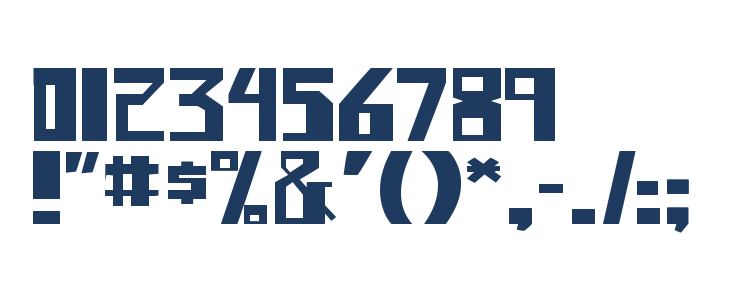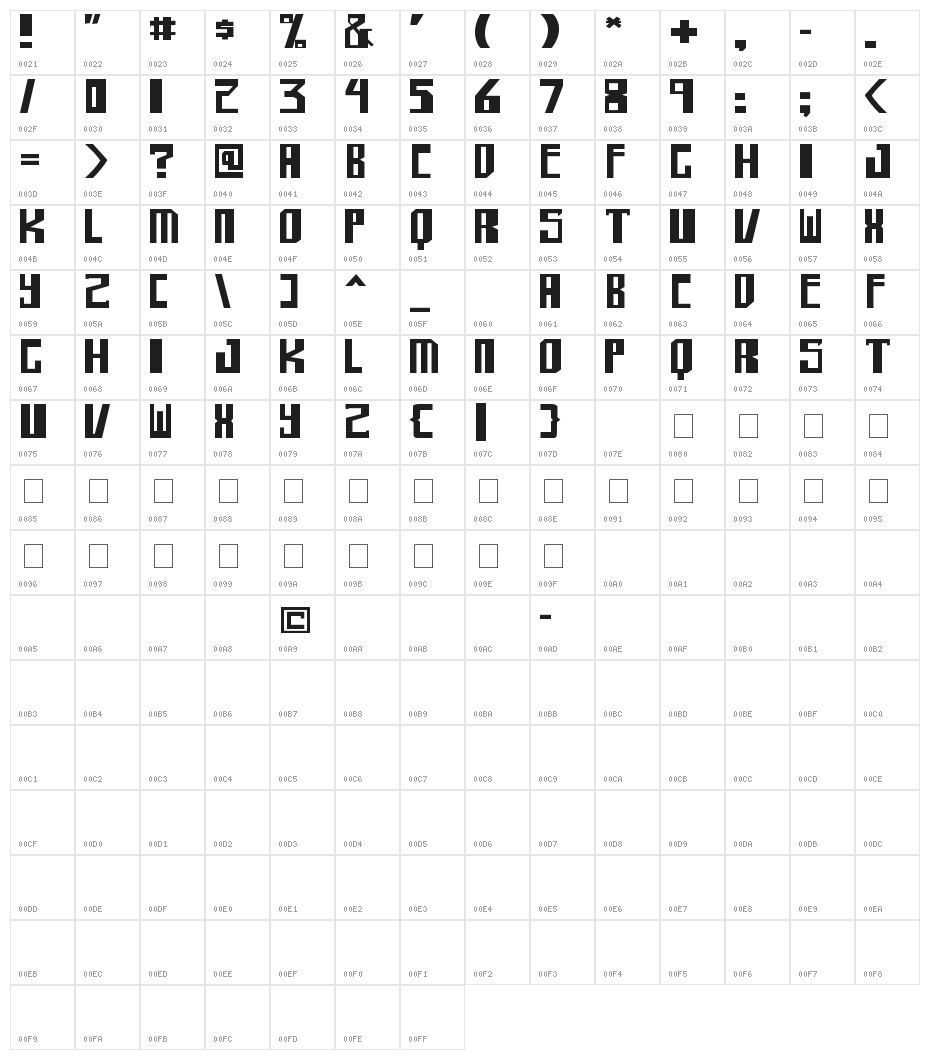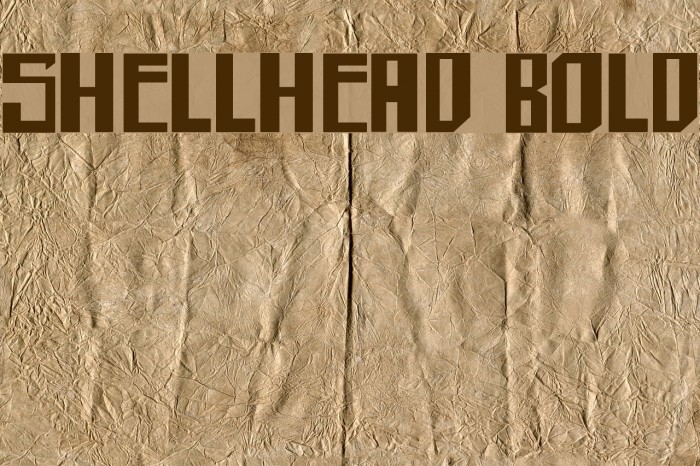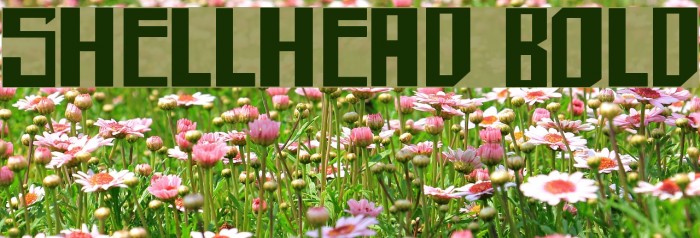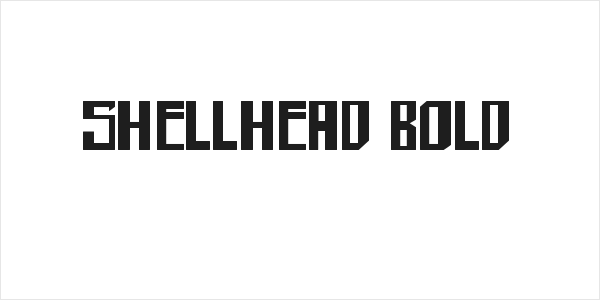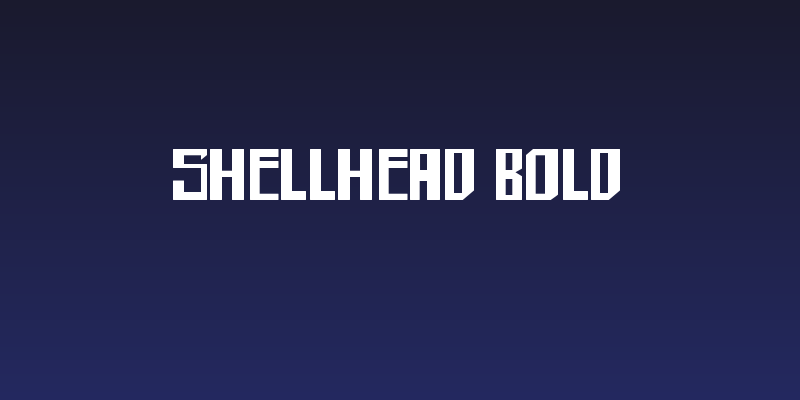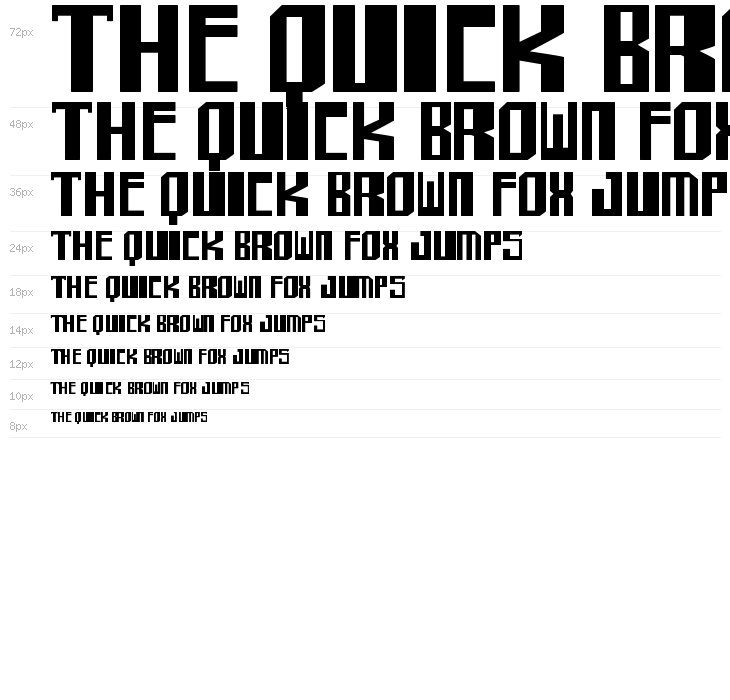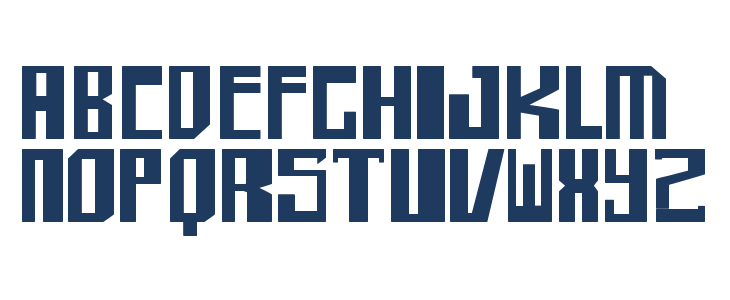
shellhead Bold Font
shellhead Bold Description
This font features a bold and geometric design with sharp angles and a futuristic aesthetic. The uppercase letters are blocky and uniform, creating a strong visual impact. The lowercase letters maintain the same angular style, ensuring consistency across different text cases. Numbers and special characters are designed with the same boldness and geometric precision, making them stand out. The overall appearance is modern and assertive, suitable for projects that require a strong and distinctive typographic presence.
Proposed ProjectsIdeal for branding, posters, video game graphics, and any project needing a modern, bold typeface.